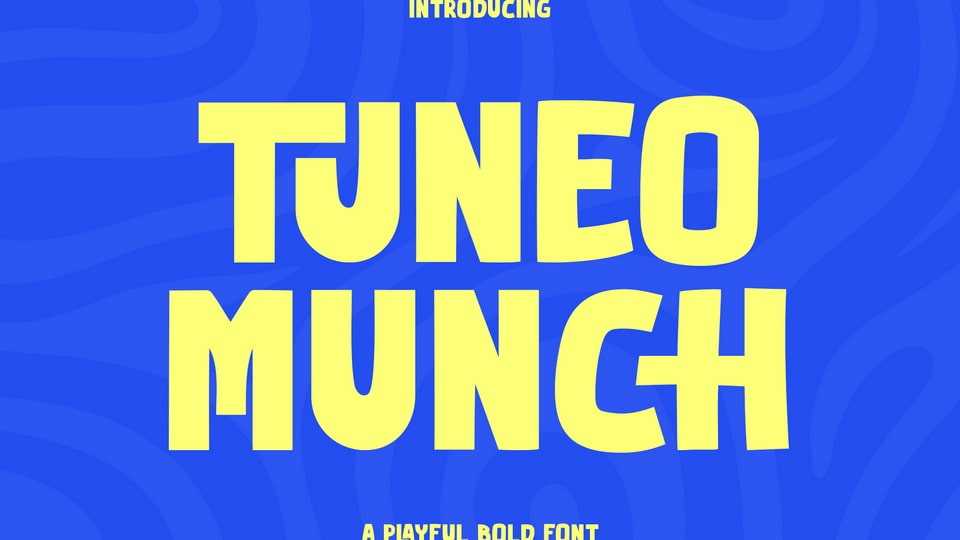
Download Tuneo Munch font, a fun, chunky, and energetic bold display typeface designed to bring personality and impact to your creative projects.
Designer: Youthlabs Studio